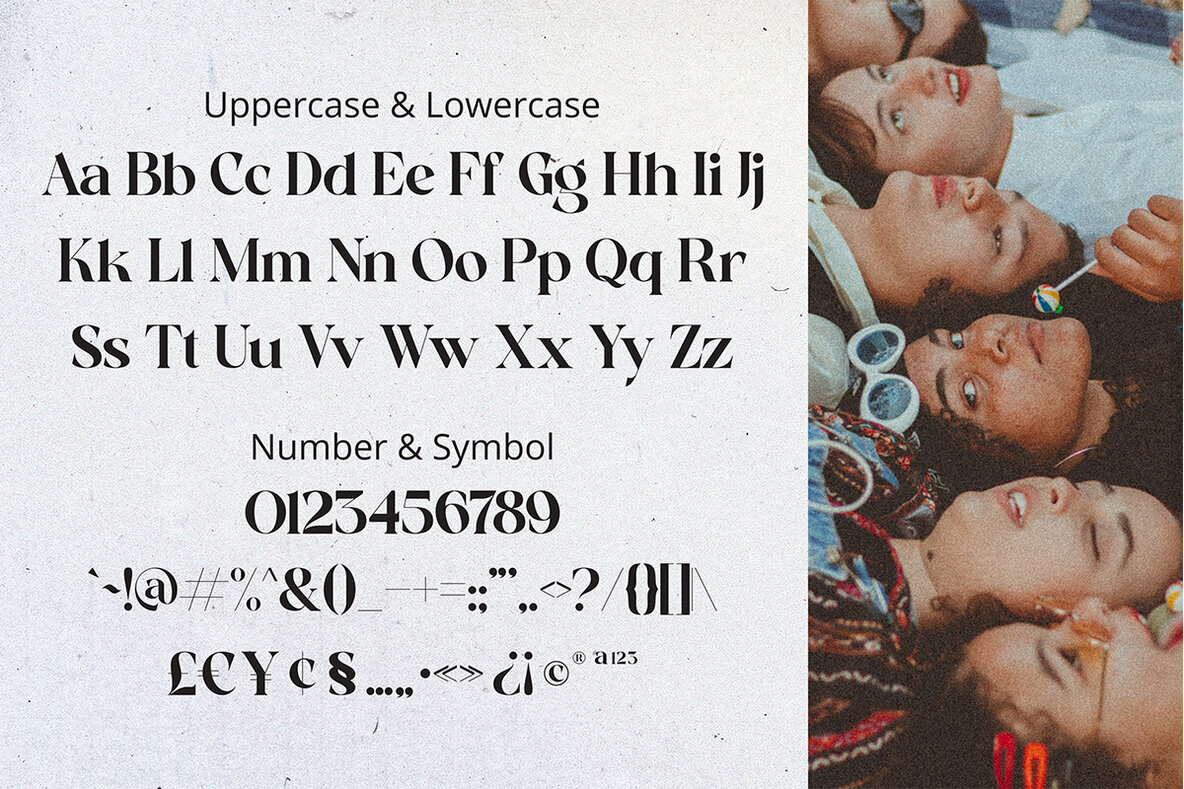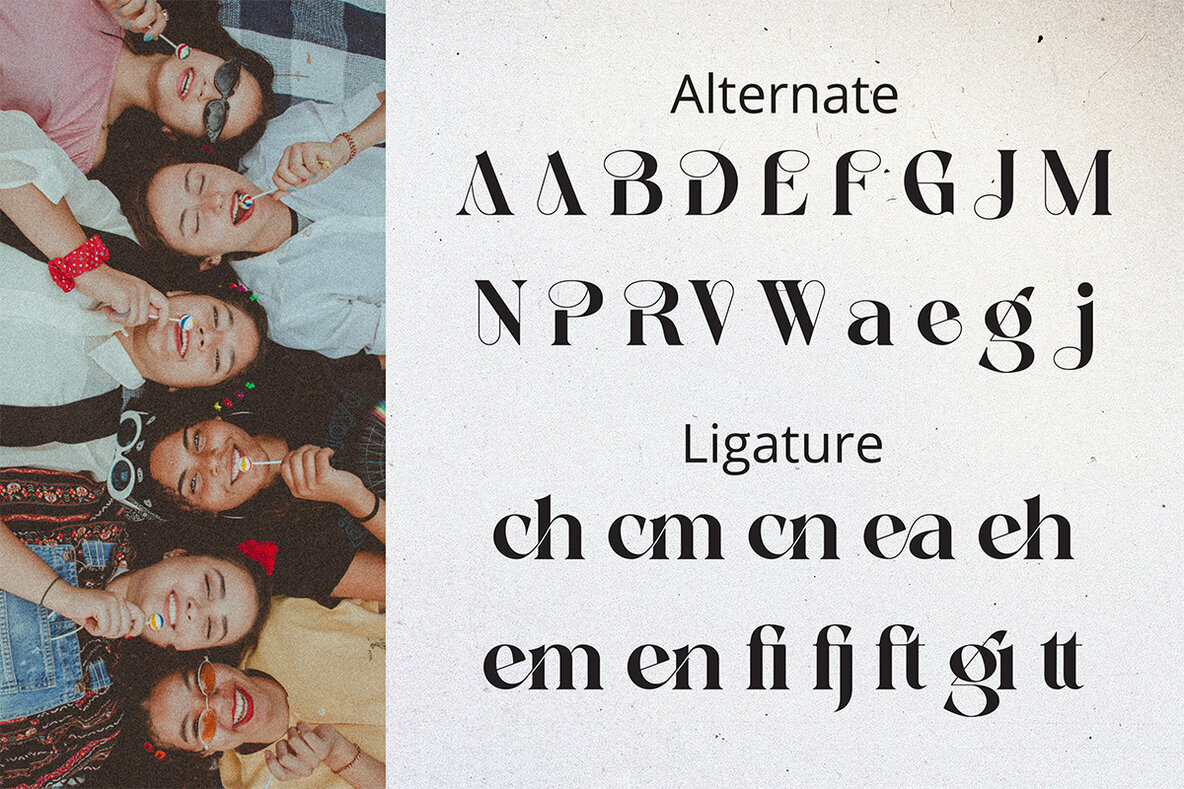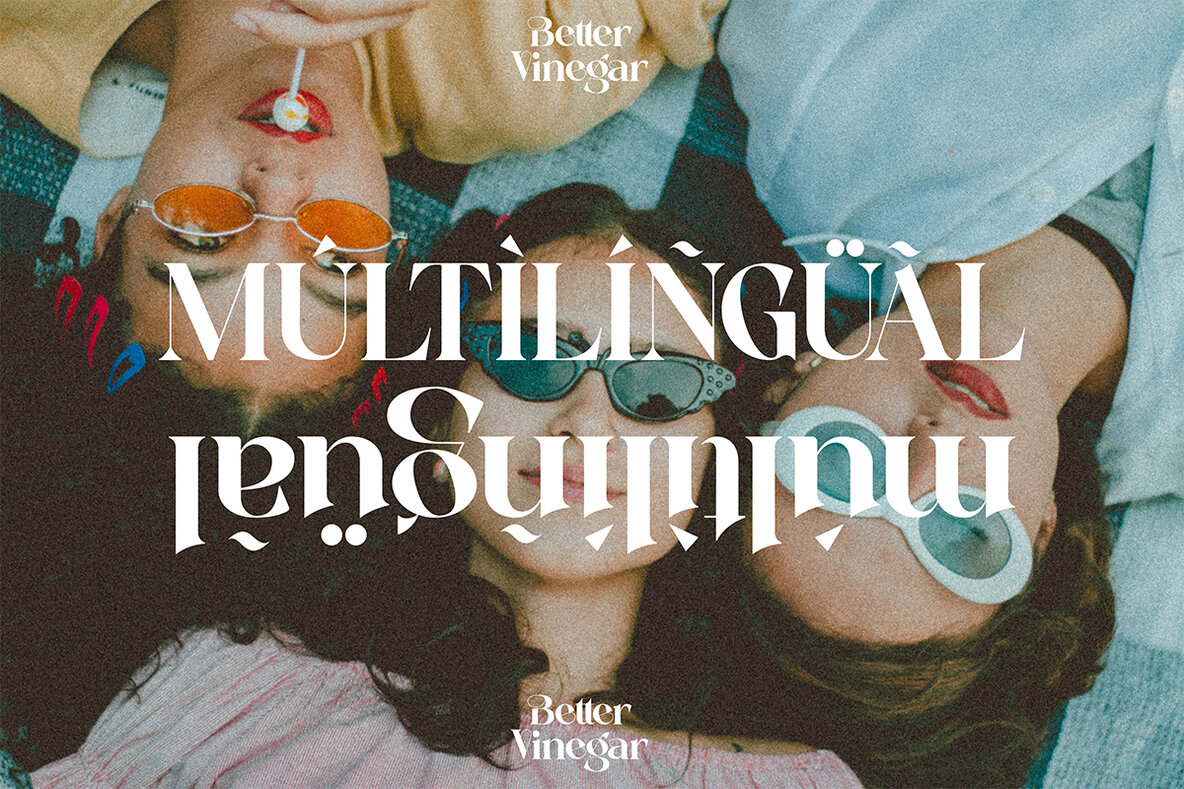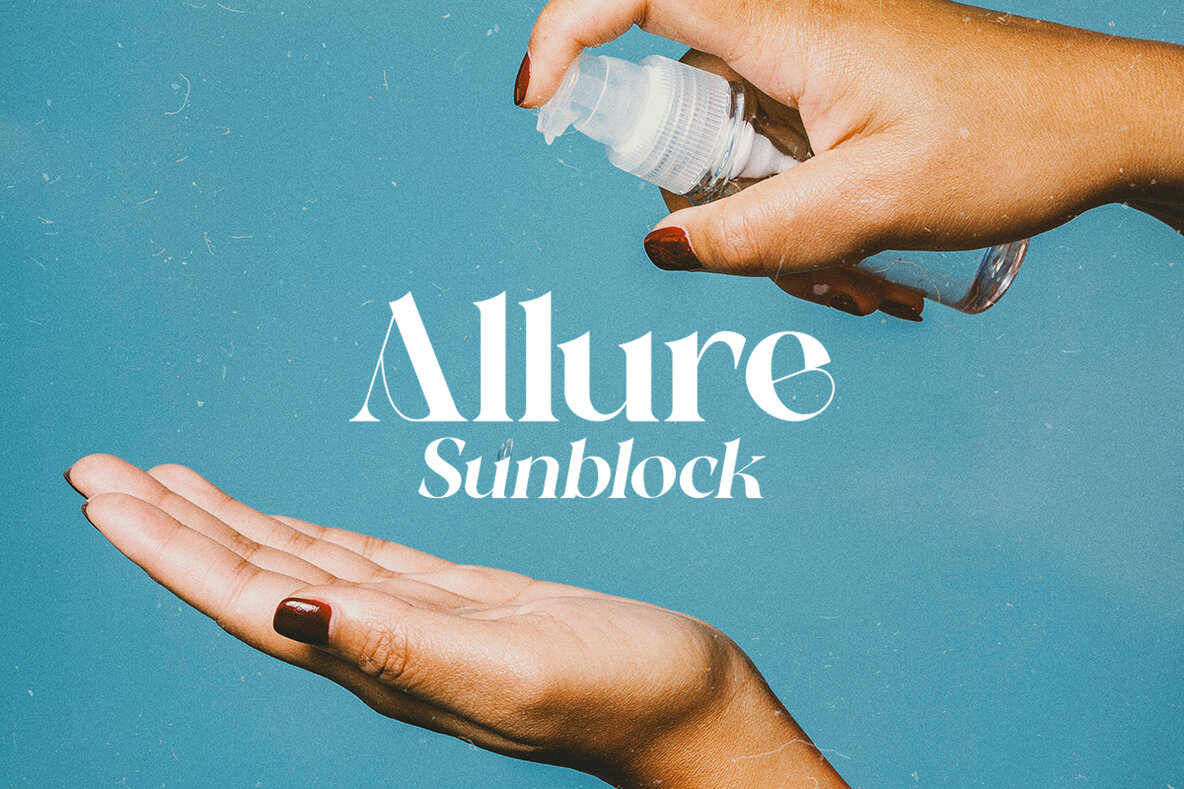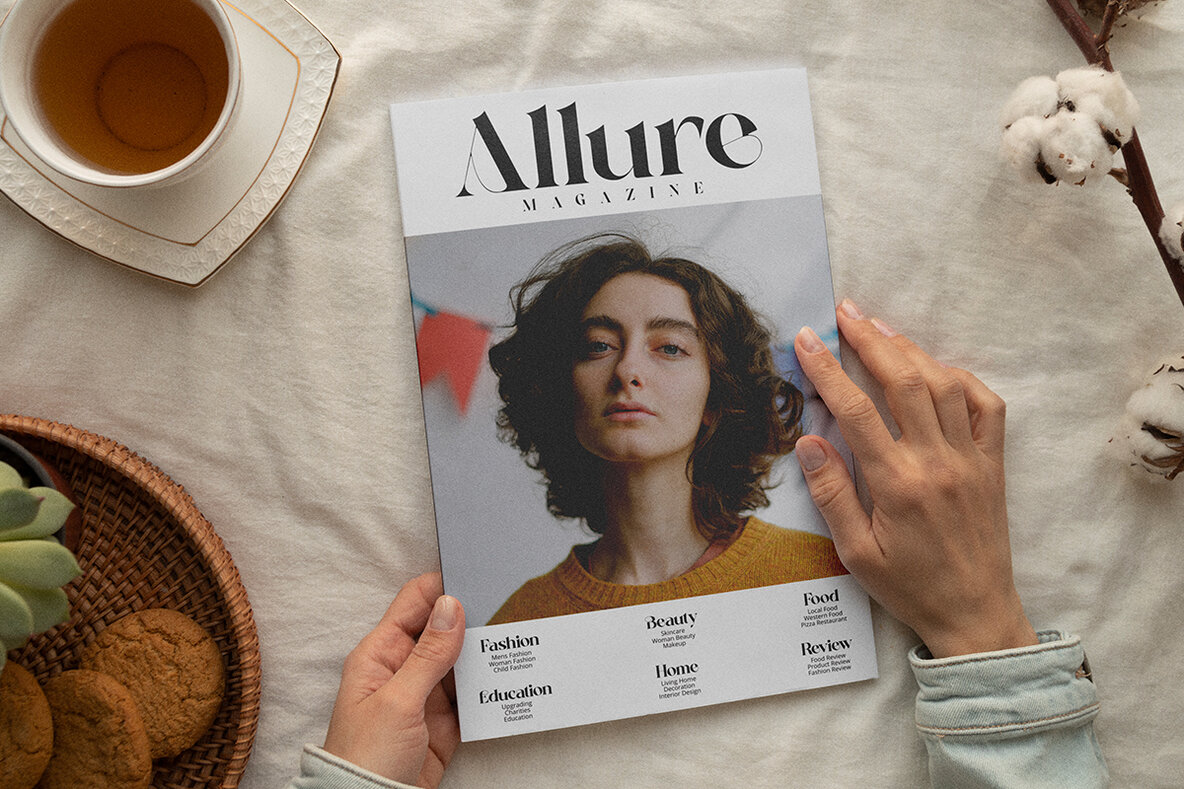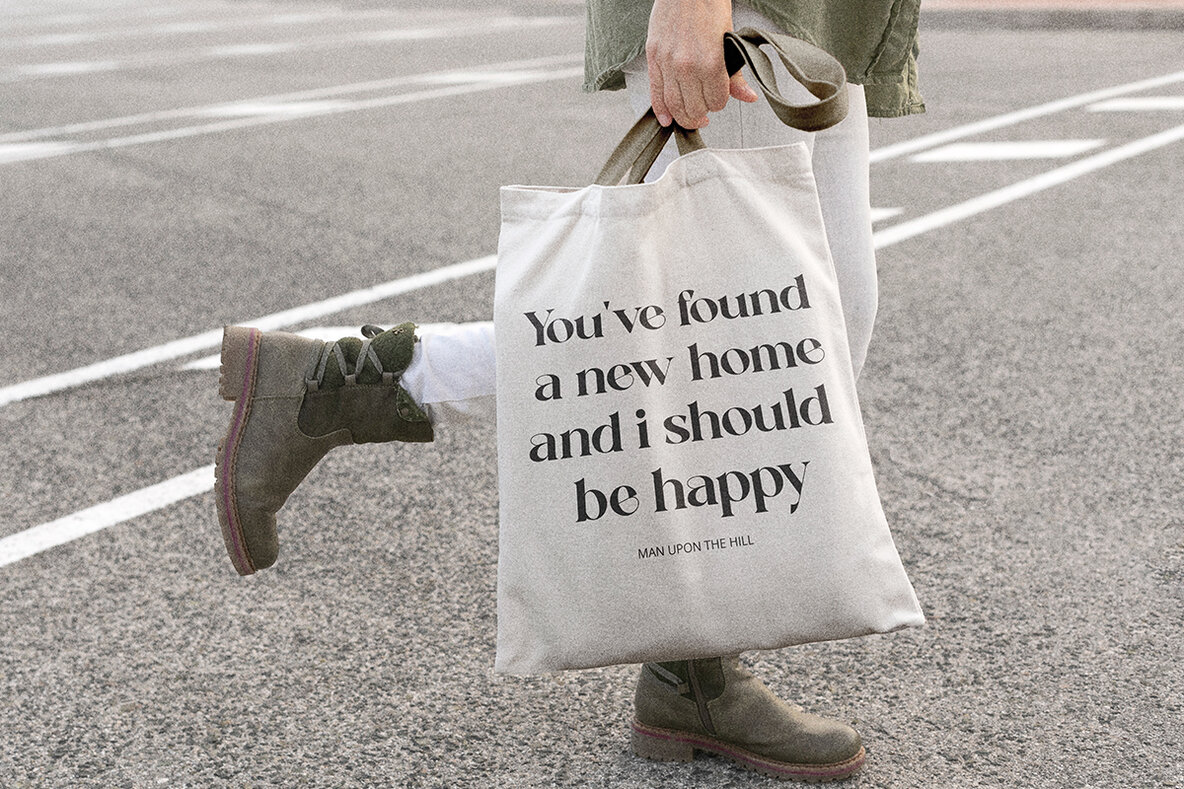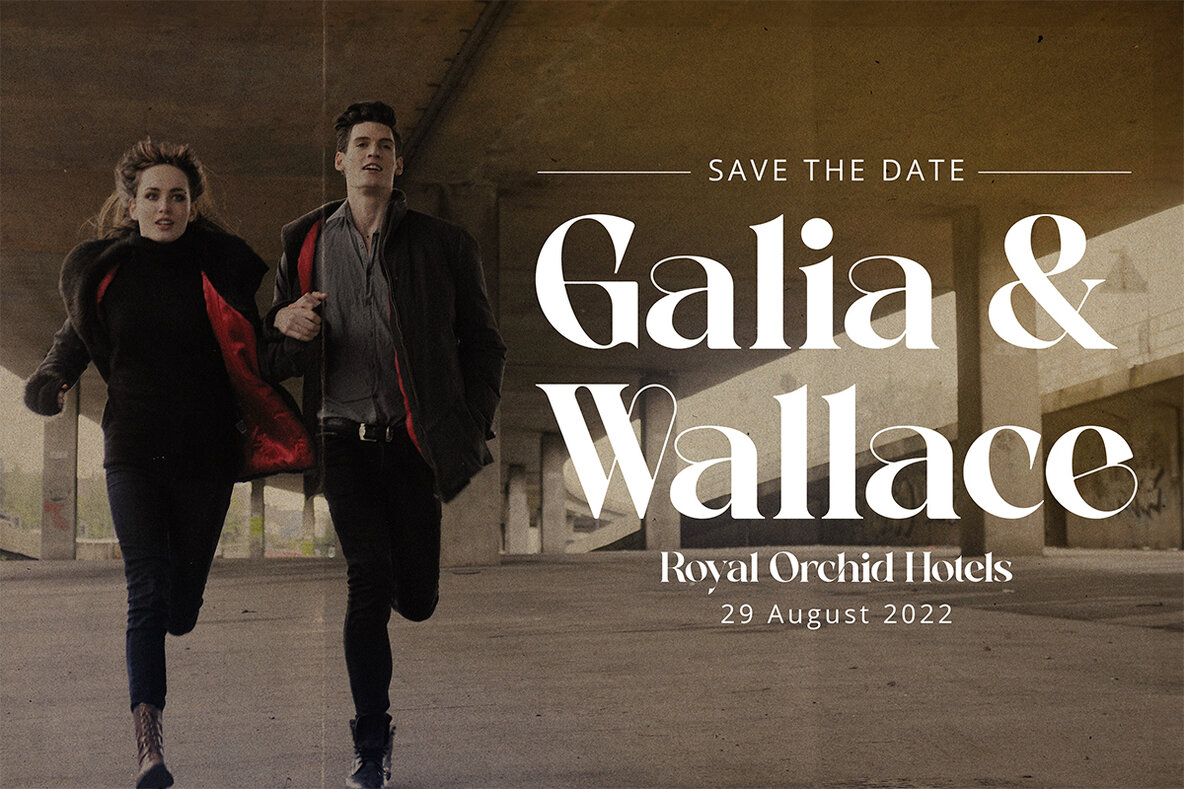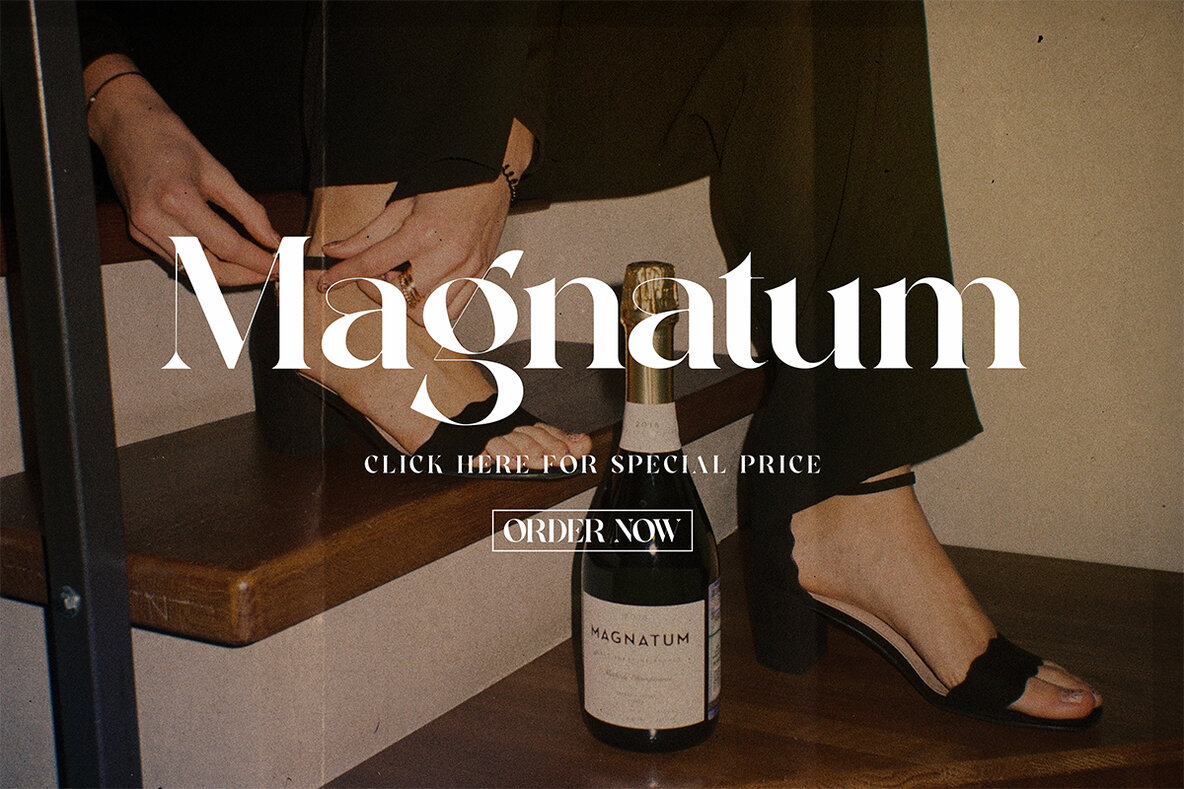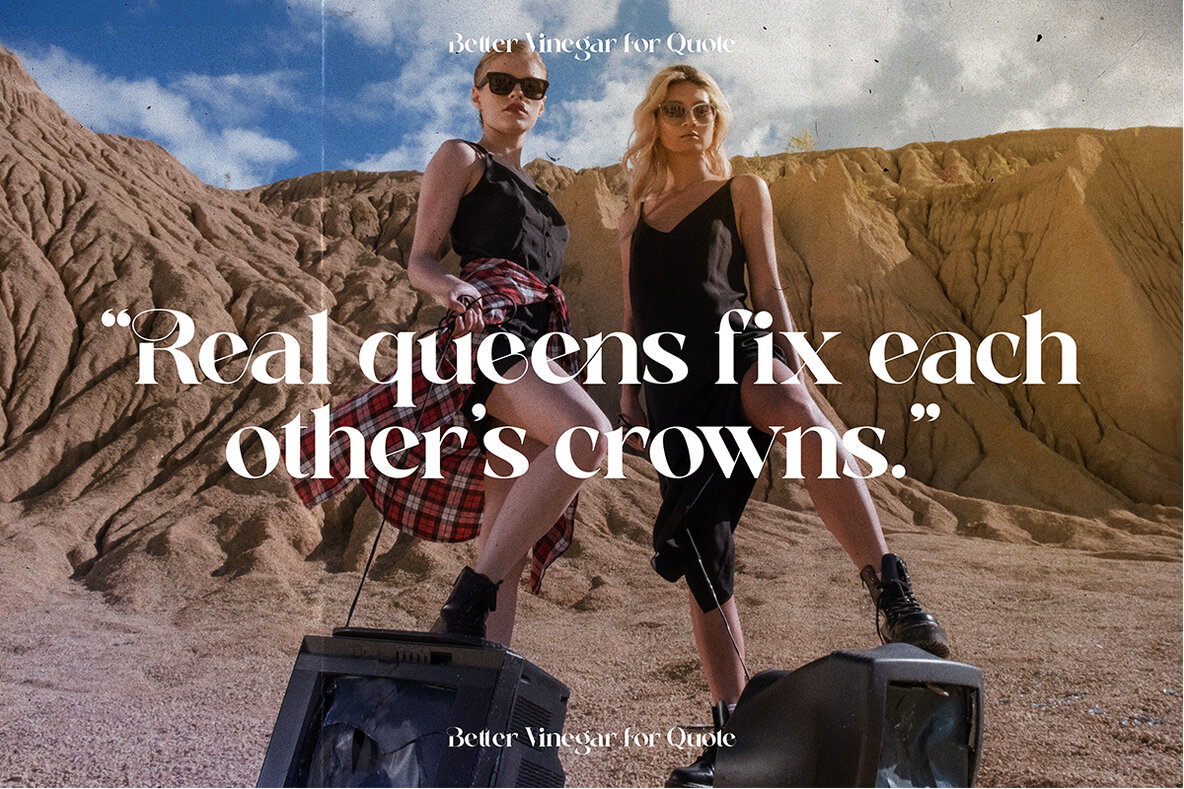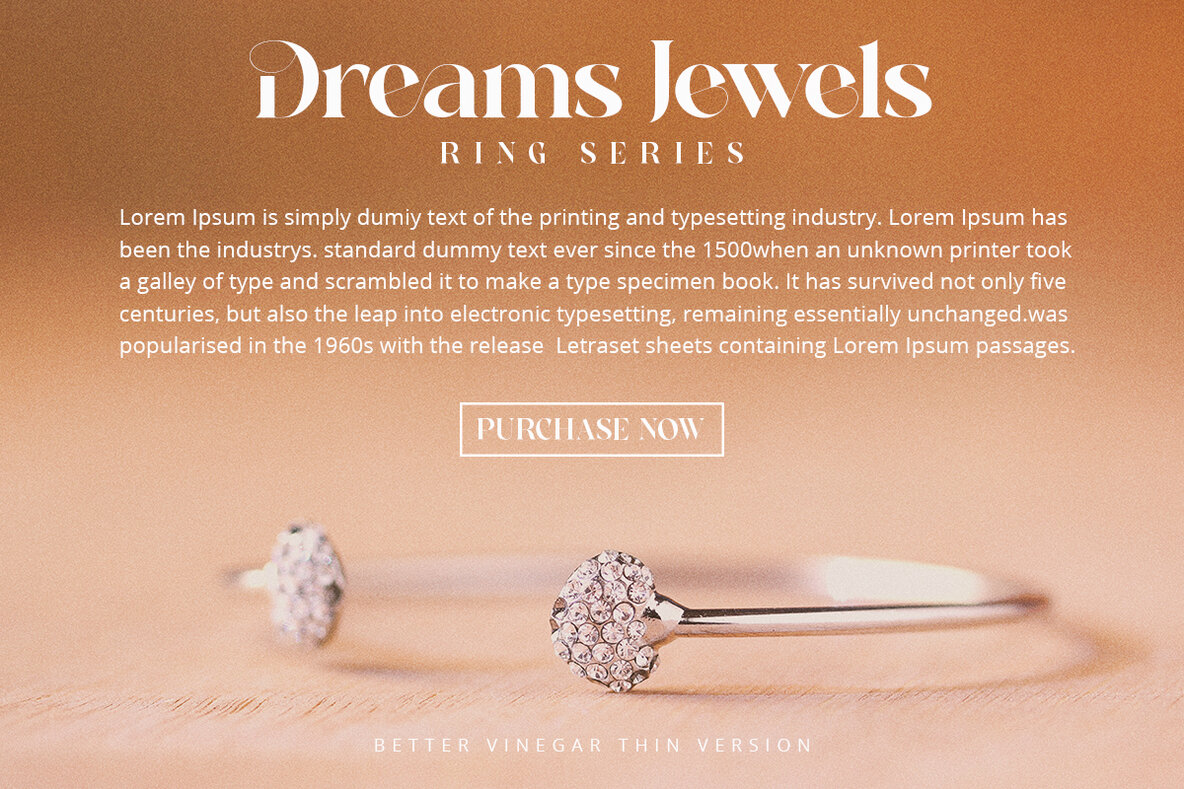
Better Vinegar Font
Better Vinegar is a Modern vintage serif typeface with beautiful ligatures, Unique alternative , multilingual support with perfect kerning. This typeface is perfect for an elegant & luxury logo , classy editorial design, women's magazine, fashion brand , cosmetic brand, fashion promotion , modern advertising design, invitation card, art quote, home decoration , book/cover titles, special events, and much more. Better Vinegar Features: • 5 Weights font (Regular,Italic,Outline,Bold,Thin) • Uppercase And Lowercase • Alternates And Ligatures • Numerals & Punctuation • Accented characters • Format File: TTF,OTF • Multilingual Support • Unicode PUA Encoded While using this product, if you encounter any problem or spot something we may have missed, please don't hesitate to drop us a message. We'd love to hear your feedbacks in order to further fine-tune our products.